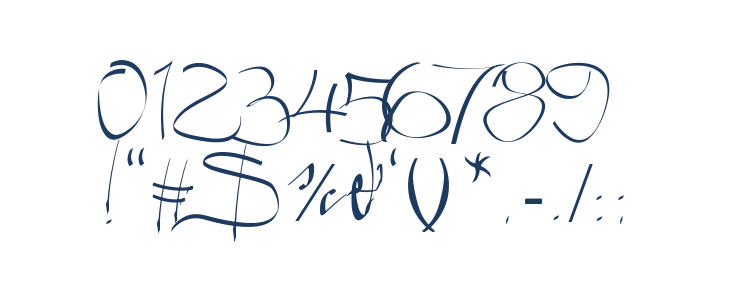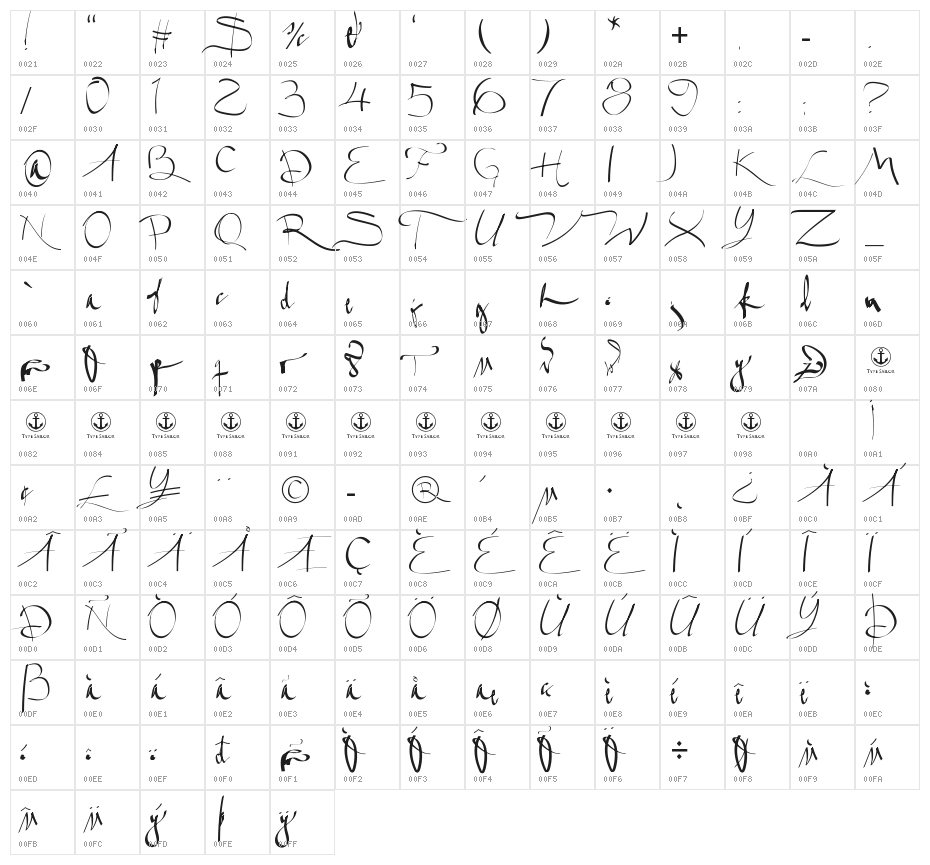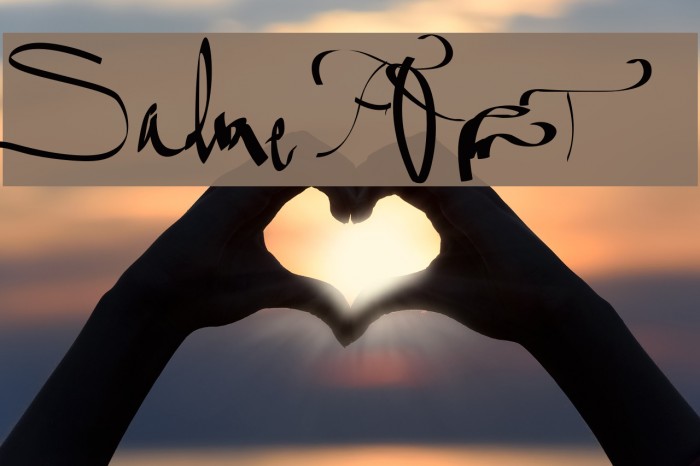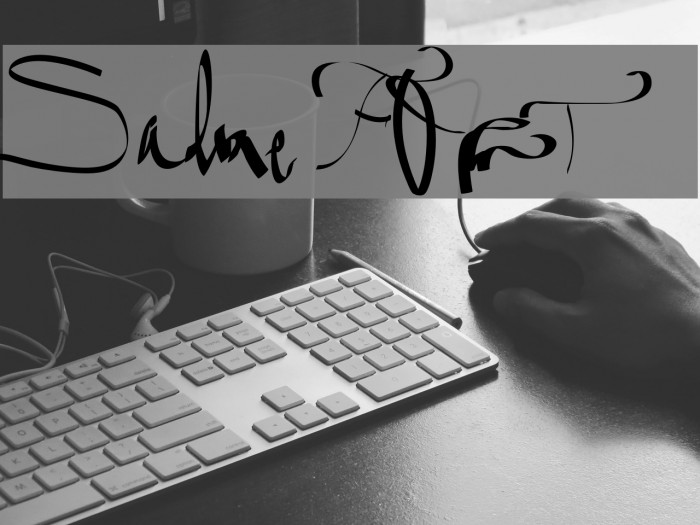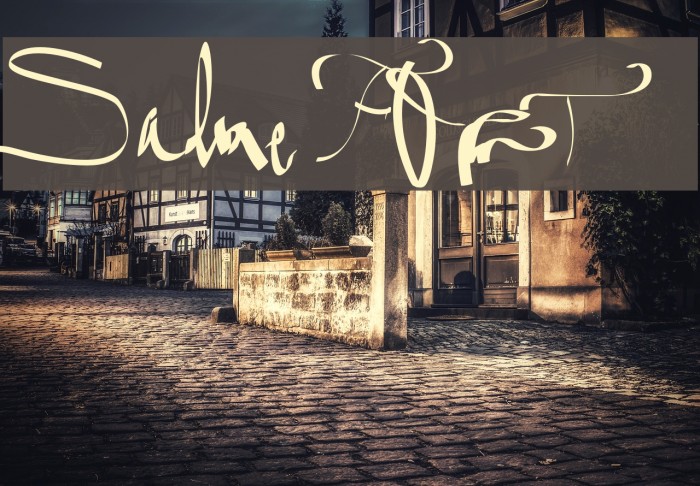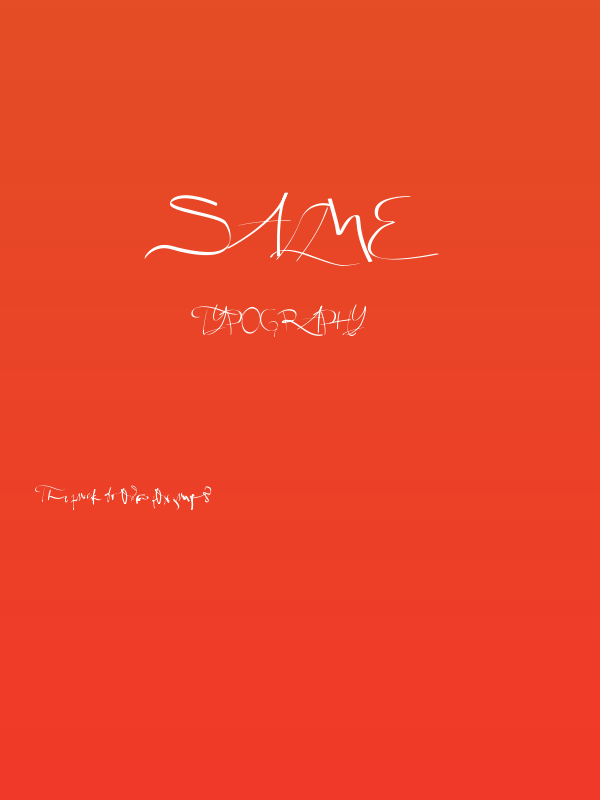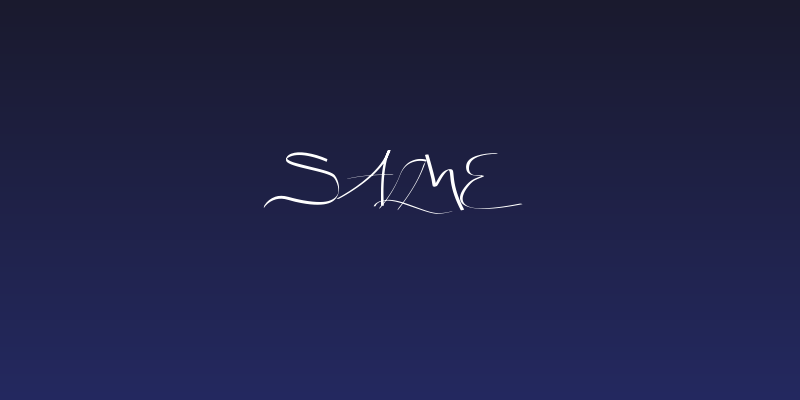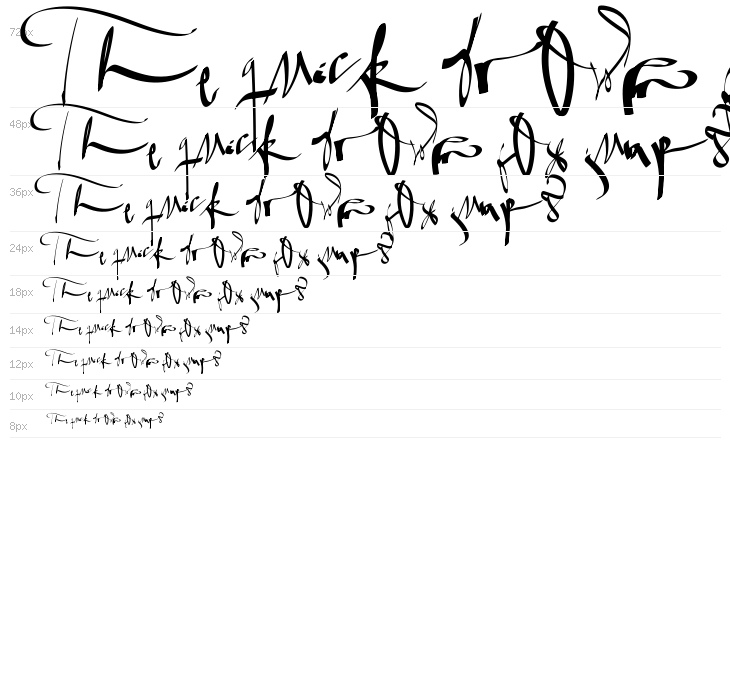
Salme Font
Salme Description
This font features a highly decorative and artistic style, characterized by its flowing, cursive script that mimics the fluidity of handwriting. The uppercase letters are elegantly elongated with intricate loops and swirls, giving them a dynamic and expressive appearance. The lowercase letters maintain a consistent style, with exaggerated ascenders and descenders that add to the overall whimsical feel. Numbers and special characters are crafted with the same attention to detail, ensuring a cohesive look across all glyphs. The font's unique design makes it stand out, perfect for projects that require a touch of elegance and creativity.
| Proposed Projects | Ideal for wedding invitations, greeting cards, artistic posters, and branding materials that require a personal touch. |